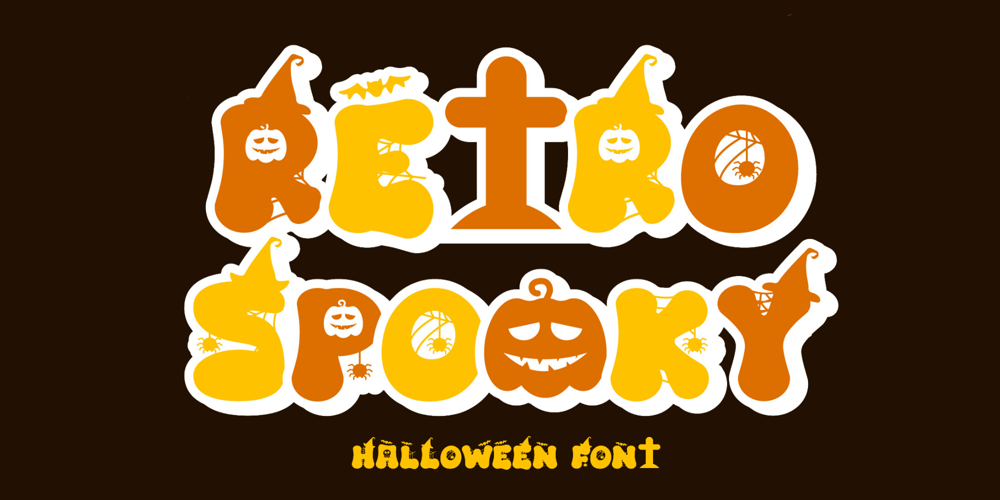
Retro Spooky Font Family was designed by Nattha Potchanad and published by Brown Cupple Typeface. Retro Spooky contains 1 styles and family package options. Retro Spooky is a Halloween decorative or display font. The additional elements of blood dripping and bones-like letters make an ambiance of horror Invitations, postcards, posters, and headings for a Halloween event; this font can be used in every setting.